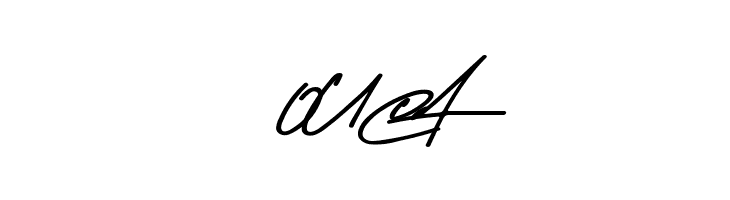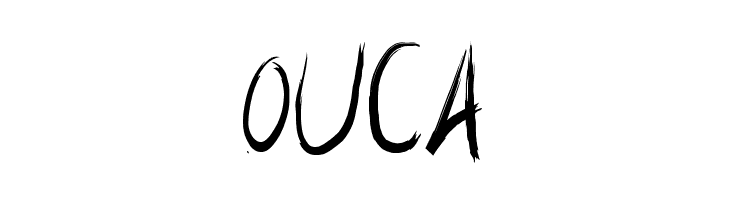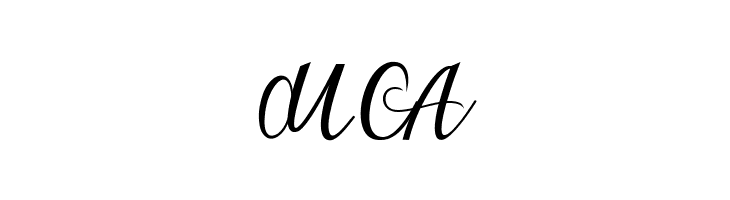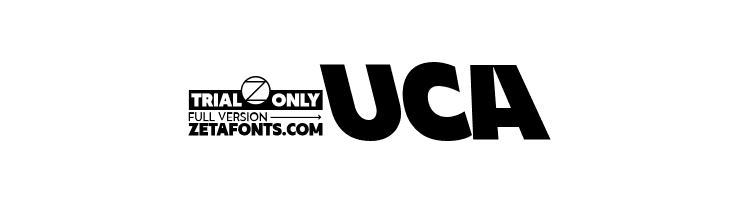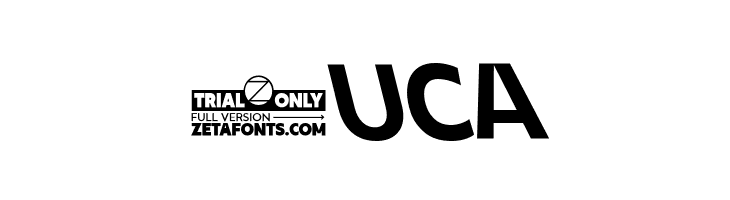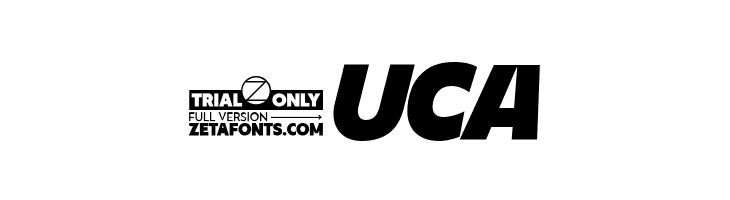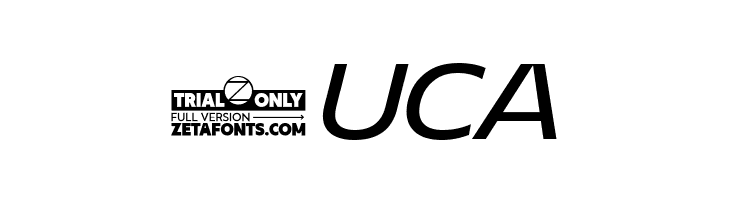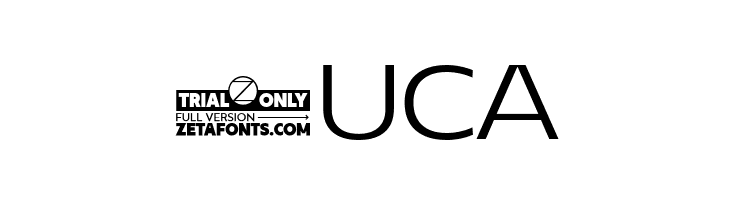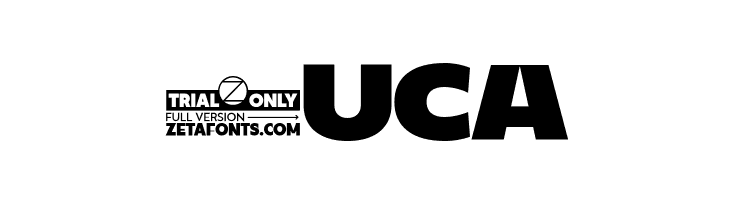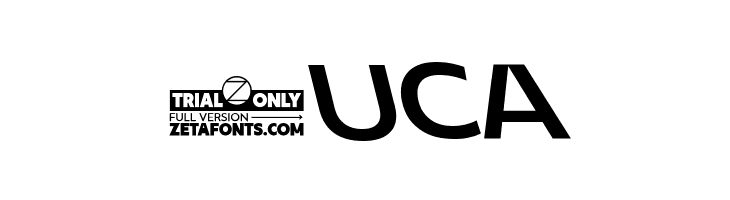
• AselineScript
A modern, elegant script font with flowing, interconnected characters.
• AselineScript
An elegant script font with fluid, cursive strokes and high contrast.
• Asem
A dynamic, brush-like font with sharp, expressive strokes.
• Asem
A dynamic, brush-style font with fluid, hand-drawn strokes.
• Asem Kandis
A bold, expressive script font with fluid, interconnected strokes.
• Asesinato Matutino
A raw, edgy font with jagged strokes and a graffiti-like aesthetic.
• Asfrogas
A dynamic and fluid script font with connected, cursive letterforms.
• Asgalt Regular
A modern, geometric font with clean lines and sharp angles.
• Asgard Trial Bold
A bold, modern font with clean, geometric lines and strong visual impact.
• Asgard Trial Bold Backslant
A bold, backslant font with a modern and dynamic style.
• Asgard Trial Bold Italic
A bold, italicized font with strong, dynamic strokes and a cohesive design.
• Asgard Trial Fat
A bold, modern font with thick strokes and strong geometric shapes.
• Asgard Trial Fat Backslant
A bold, backslanted font with a dynamic and energetic style.
• Asgard Trial Fat Italic
A bold, italic font with a modern, dynamic style and high contrast.
• Asgard Trial Fit Bold
A bold, modern typeface with geometric shapes and a strong presence.
• Asgard Trial Fit Bold Backslant
A bold, backslanted font with a modern and dynamic style.
• Asgard Trial Fit Bold Italic
A bold, italic font with a modern and dynamic style.
• Asgard Trial Fit Fat
A bold, modern font with thick, uniform strokes and a slightly condensed appearance.
• Asgard Trial Fit Fat Backslant
A bold, backslanted font with a dynamic and impactful style.
• Asgard Trial Fit Fat Italic
A bold, italic font with a dynamic and modern style.
• Asgard Trial Fit Light